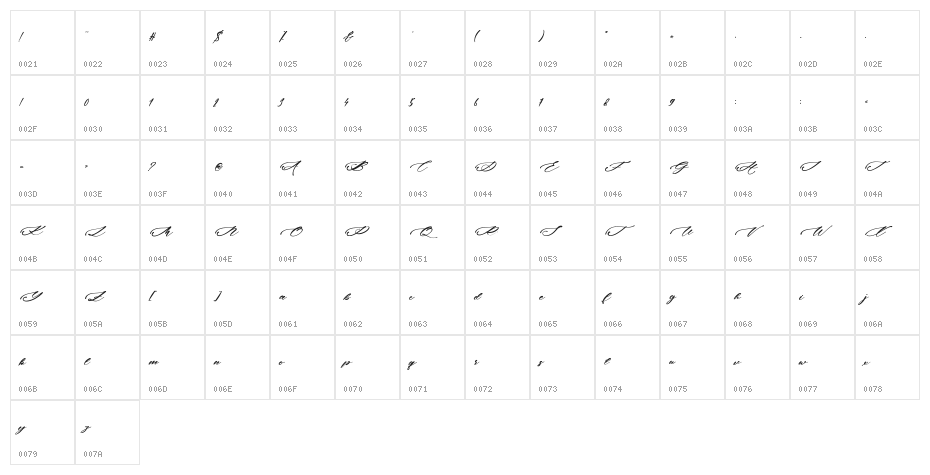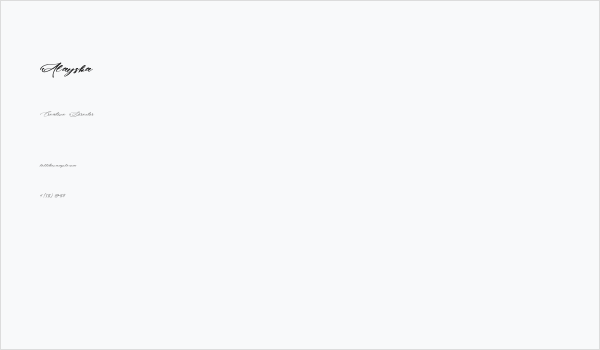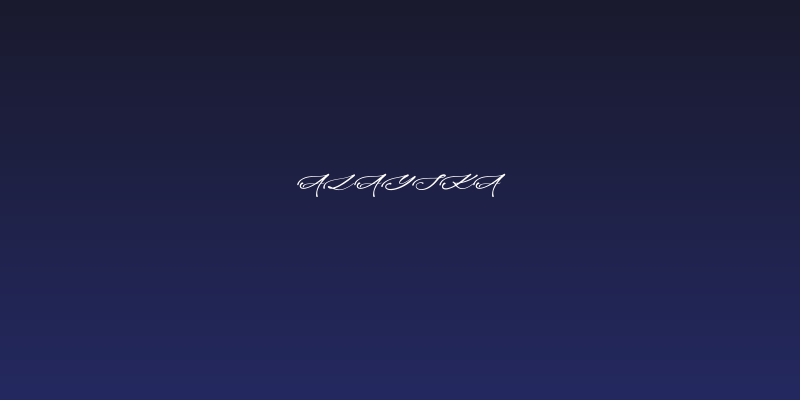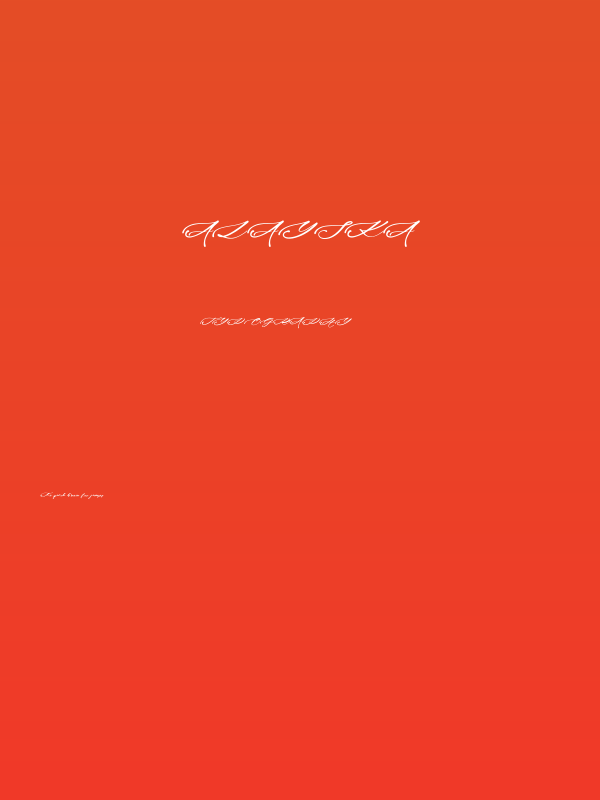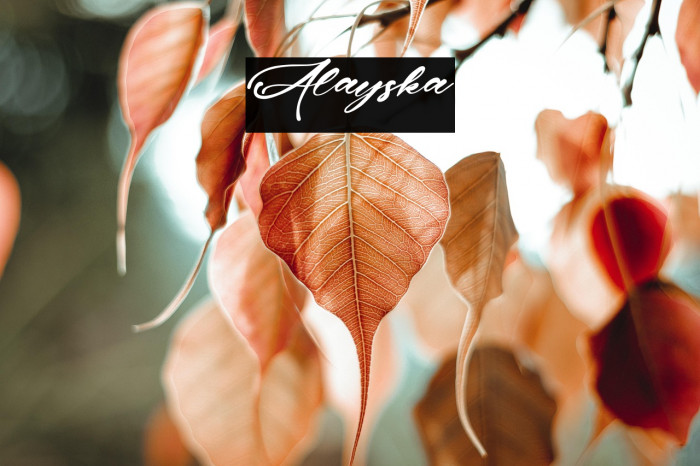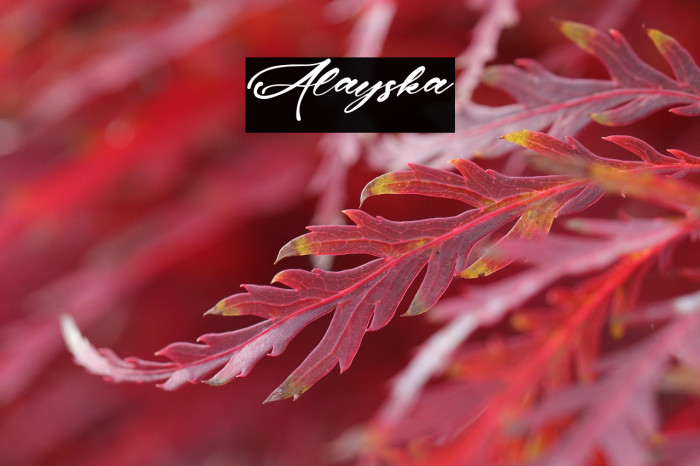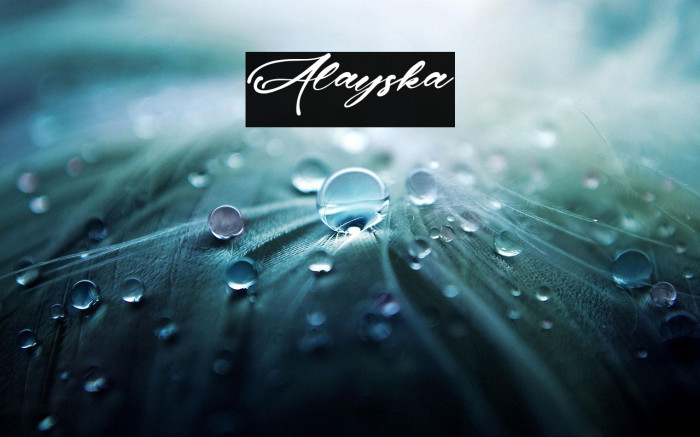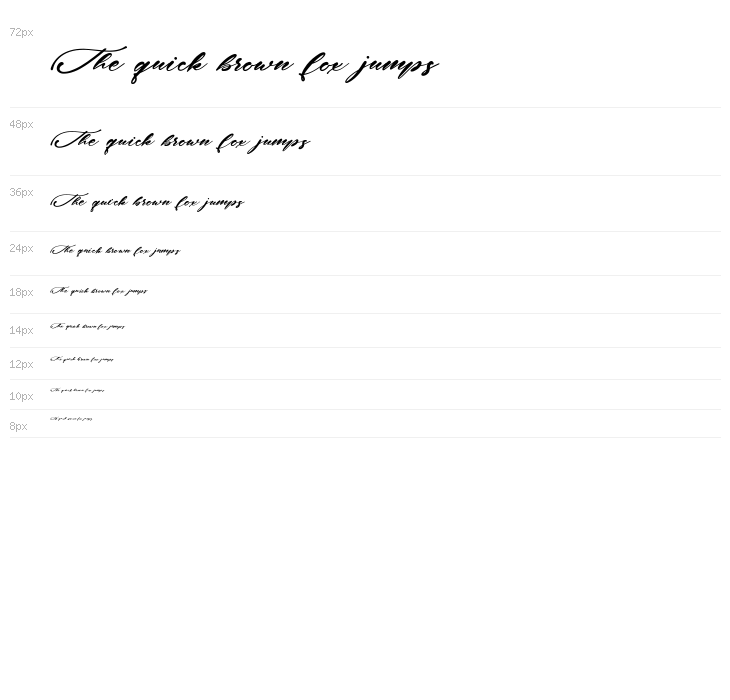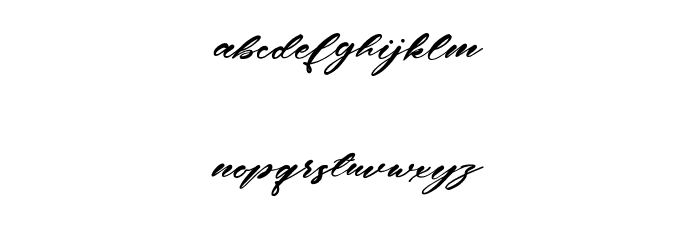
Alayska Font
Alayska Description
This elegant script font features flowing, cursive letterforms with a refined and sophisticated appearance. The uppercase letters are characterized by their sweeping curves and intricate loops, while the lowercase letters maintain a consistent fluidity and grace. The numerals are stylishly integrated into the overall design, complementing the alphabet with their own unique flair. Special characters are thoughtfully crafted to match the font's aesthetic, ensuring a cohesive look across all text elements. The font's delicate strokes and high contrast between thick and thin lines add to its luxurious feel, making it ideal for formal invitations, branding, and other high-end design projects.
| Overall Style | Elegant, Sophisticated |
| Use Case | Invitations, Branding, Stationery |
| Proposed Projects | Ideal for wedding invitations, luxury branding, elegant stationery, and high-end product packaging. |